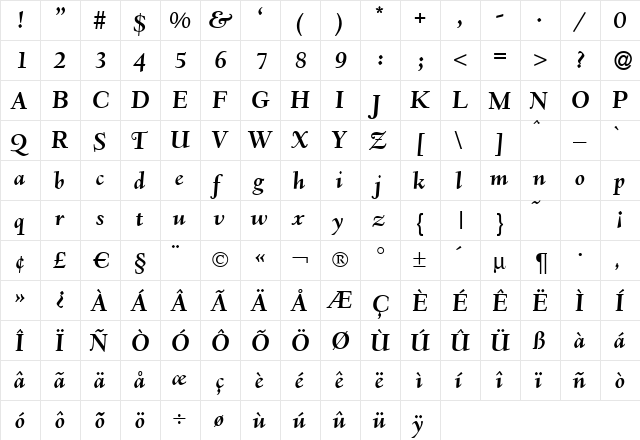
D690-Roman BoldItalic
Design Context for D690-Roman Typeface
D690-Roman is a composed and adaptable typeface that performs quietly and consistently across a wide range of design contexts. The dynamic lean of this cut emphasises speed and emphasis in any layout. The heavy weight commands attention and anchors typographic hierarchies.